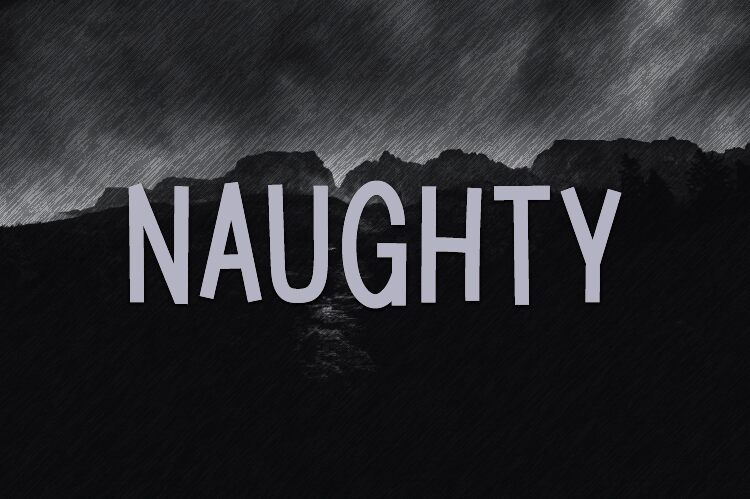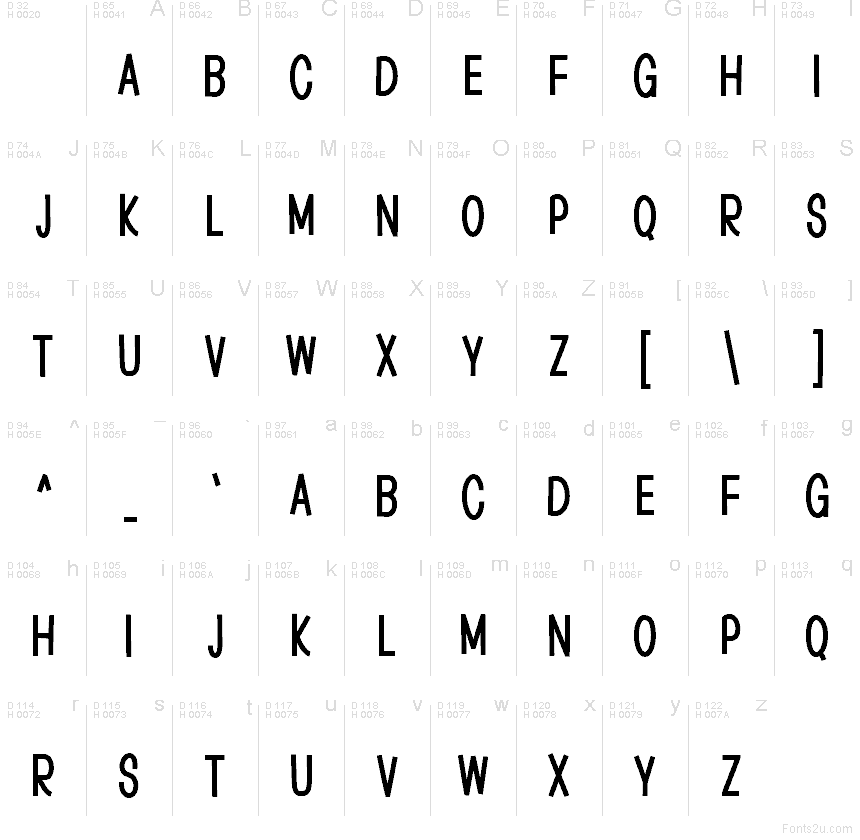
Naughty
Naughty font by HannaBie Creative Studio is a free comic display typeface with a loud, slightly chaotic personality. The tall, squeezed letters lean and wobble just enough to feel hand-drawn and mischievous, while the thick strokes keep everything bold and readable from a distance. It has that scribbled-on-the-desk energy—messy in a controlled way—that grabs attention without becoming illegible.
Using Naughty, this free font shines on kids’ book covers, playful posters, party invitations, YouTube thumbnails, quirky brand titles, and offbeat social graphics. Its irregular rhythm gives headlines a jumpy, energetic beat that feels spontaneous and fun. For balance, pair Naughty with a clean, simple sans-serif in smaller text, and keep this typeface big and bold so its character really comes through.